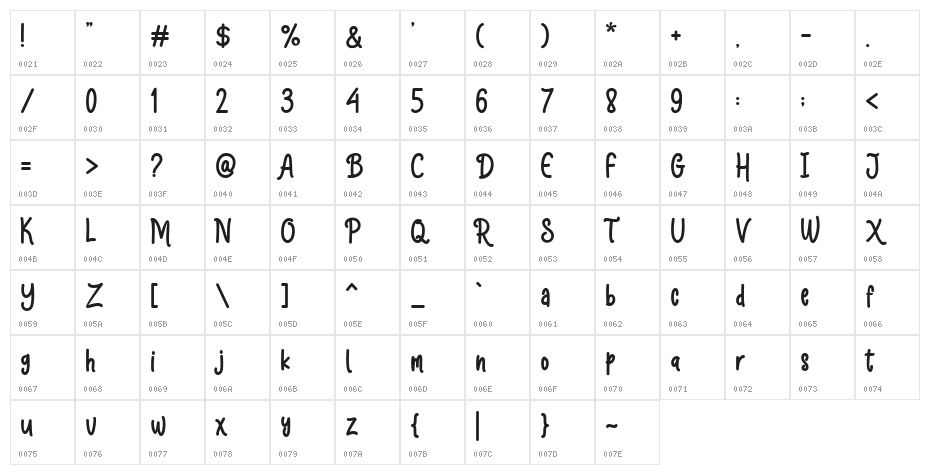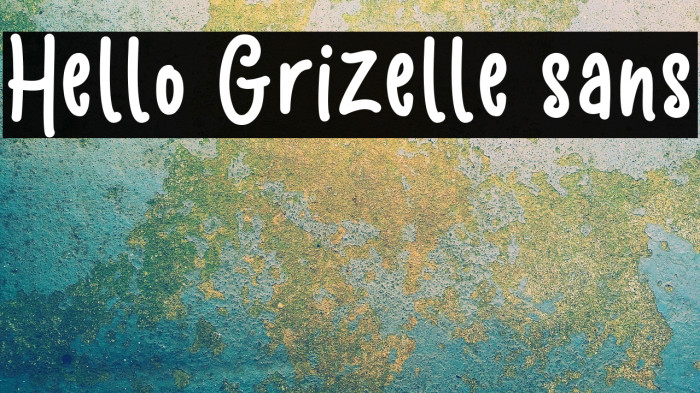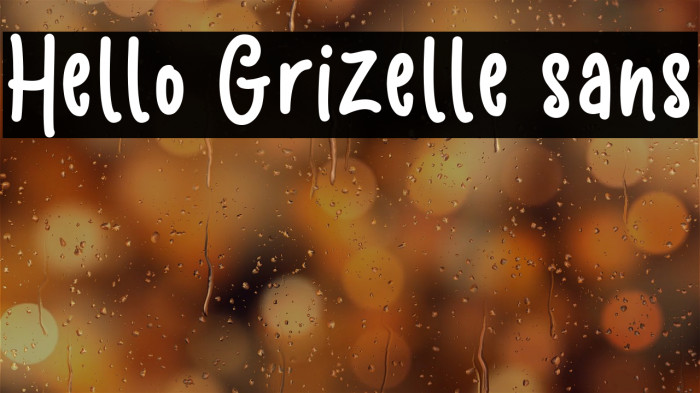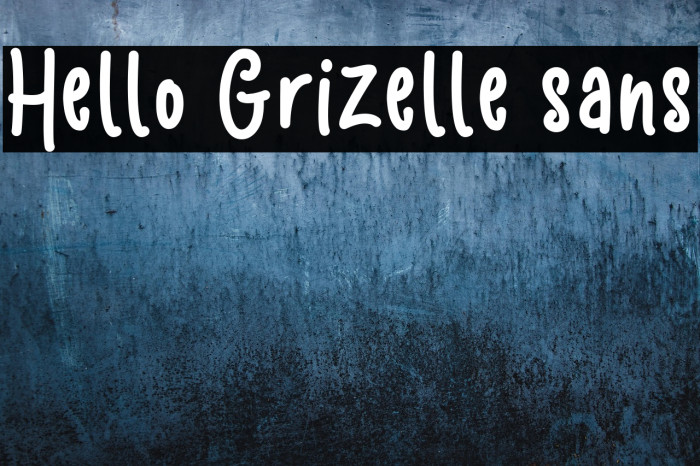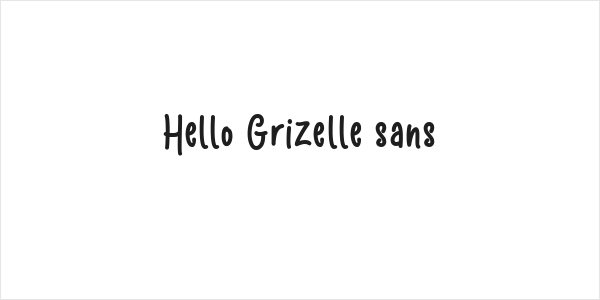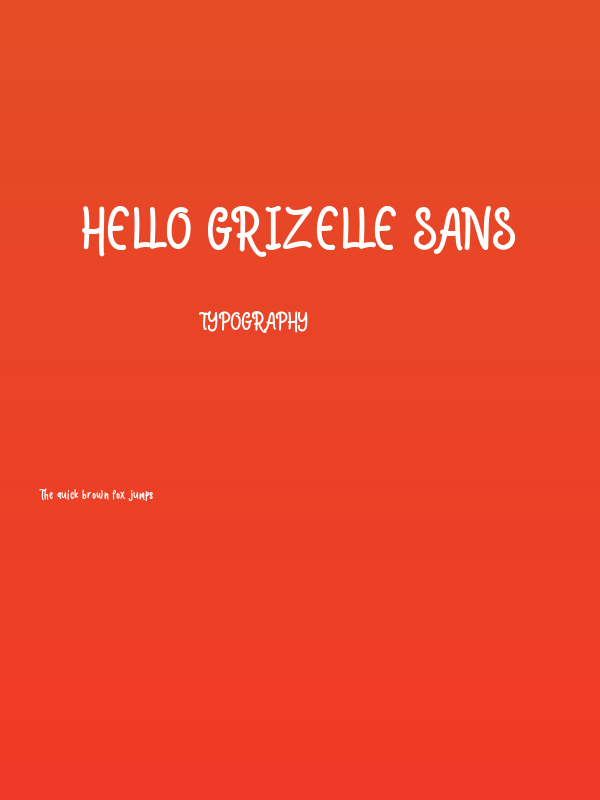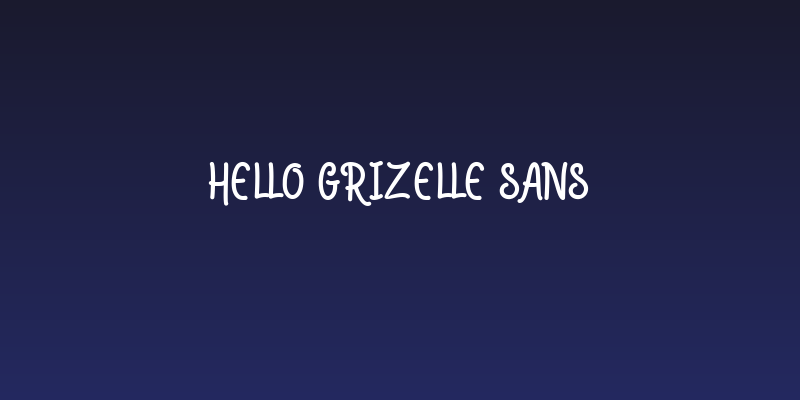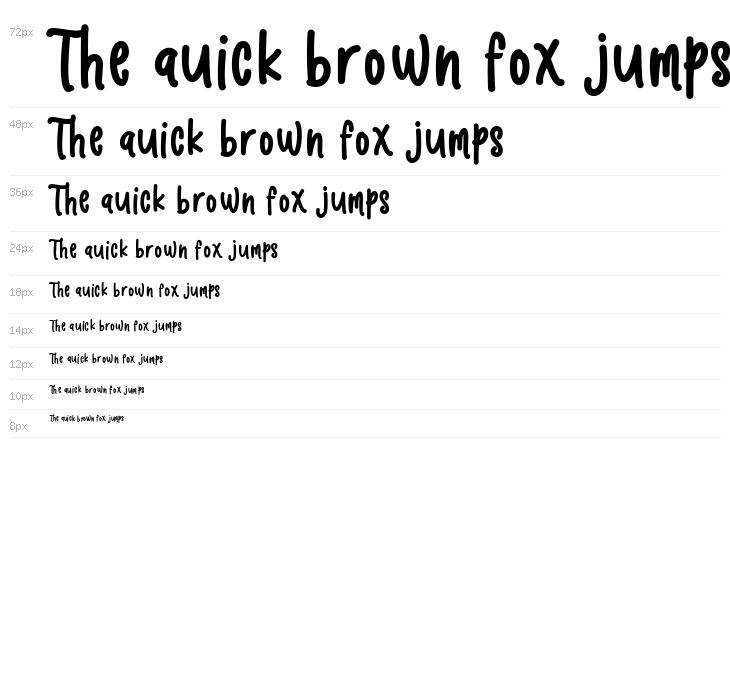
Hello Grizelle sans Font
Hello Grizelle sans Description
This playful and whimsical font features a handwritten style with smooth, rounded edges and a friendly appearance. The characters are slightly irregular, giving it a casual and approachable feel. The uppercase letters are bold and prominent, while the lowercase letters maintain a consistent flow with slight variations in height and width. The numbers and special characters are designed to match the overall style, ensuring a cohesive look. This font is perfect for projects that require a touch of personality and charm.
| Use Case | Logos, Headlines, Informal Text |
| Proposed Projects | Ideal for children's books, greeting cards, playful branding, and social media graphics. |